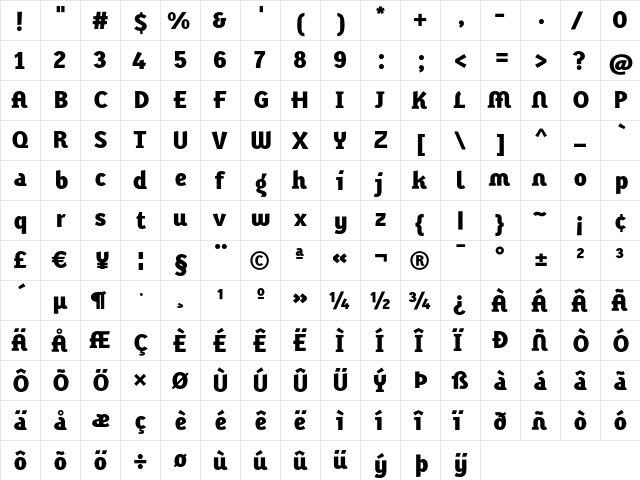
KarbidDisplay ExtraBold Font Preview
KarbidDisplay ExtraBold
Design Context for KarbidDisplay Typeface
KarbidDisplay brings ornamental detail and strong personality to headlines and identities, where visual impact matters more than quiet functionality. Its bold stroke weight gives it real presence on the page.
Font Pairing: Pair with a clean neutral sans-serif for body copy to let KarbidDisplay's character lead without overwhelming the composition.
Pro Tip: Treat KarbidDisplay as the centrepiece of your typographic hierarchy. One strong heading set in a decorative face can carry an entire layout.